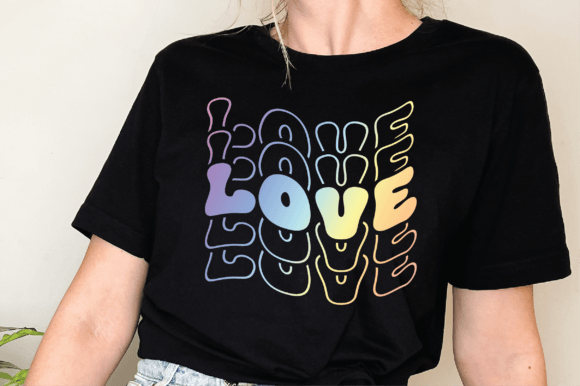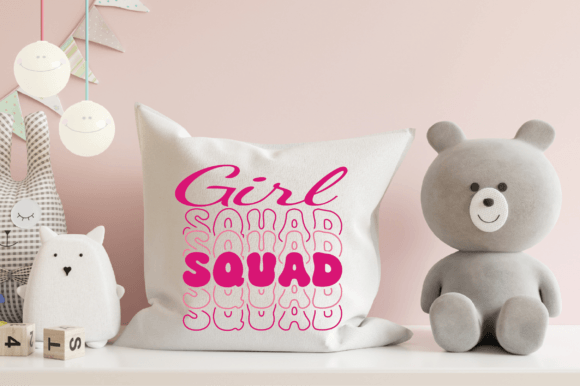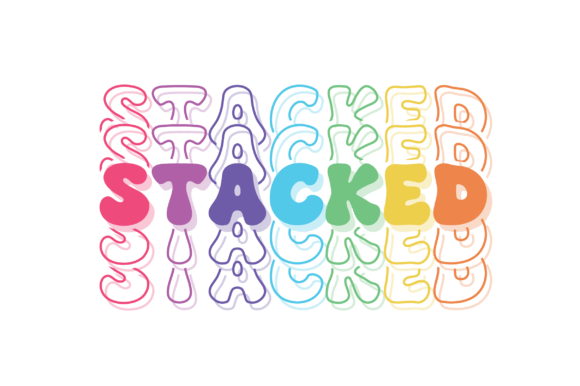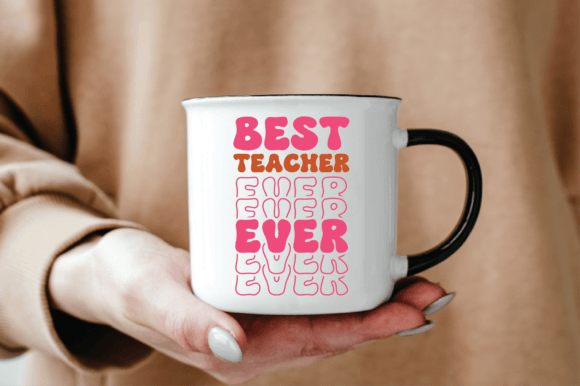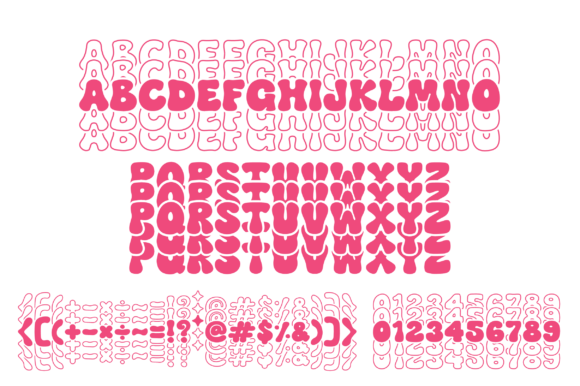
Introduction to Retro Groove Stacked Font
Retro Groove Stacked is a captivating display font that pays homage to the vibrant era of groovy designs.
With bold, stacked letters, it effortlessly evokes nostalgia while adding a modern twist Perfect for eye-catching headlines, posters, and any project in need of a touch of retro charm.
Key Features of Retro Groove Stacked Font
Why Choose Retro Groove Stacked Font?